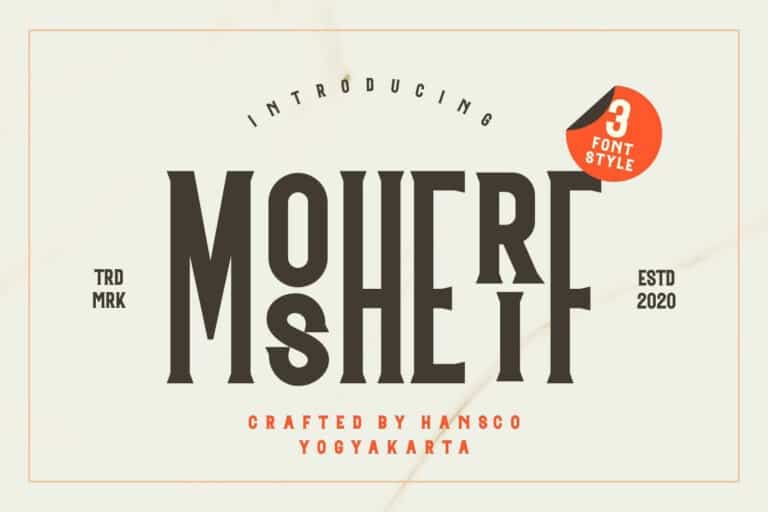
Mosherif Display Font Free
Mosherif Display Font is a sans based font with unique ligature that will make your design looks clean and modern. It is a display typeface from the designer HansCo. You can use this font for any purpose, especially to make logotype.
This font have special ligatures that will make your design more stand-out! But especially the areas of branding and editorial design. There in particular, the typeface impresses with its look and feel, making the design pleasant and smooth.